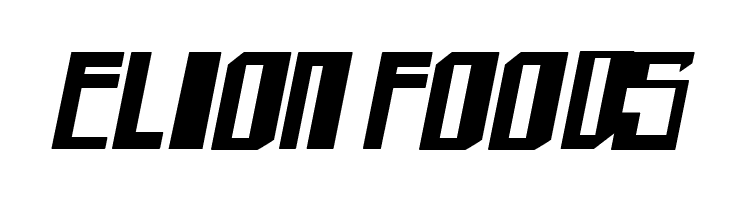
Azzardo Font
- Font: Azzardo
( Fonts by Press Gang Studios - Andeh Pinkard - www.pressgang-studios.com )
A bold, italicized font with a dynamic, angular design.